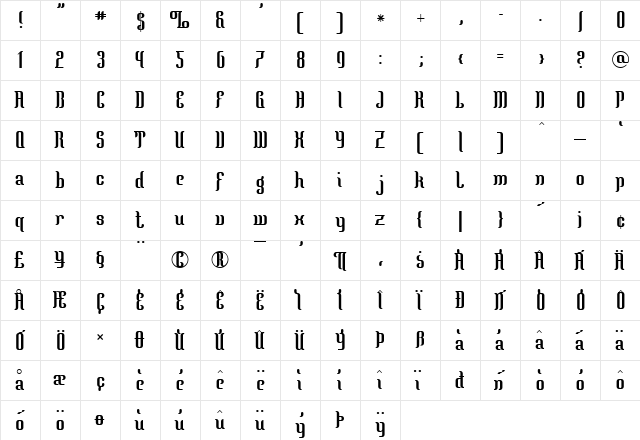
Mata Hari Hollandaise Font Preview
Mata Hari Hollandaise
Mata Hari Hollandaise Font Details
| Style | Hollandaise |
| Foundry | Max Kisman |
| Designer | max Kisman |
Design Context for Mata Hari Typeface
Mata Hari is a composed and adaptable typeface that performs quietly and consistently across a wide range of design contexts.